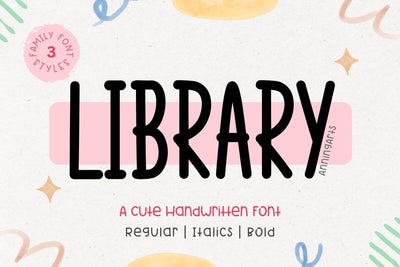
Library - Handwritten Font
'Library Font' – a meticulously crafted handwritten font that brings a touch of neatness and realism to your digital canvas. With its three distinct styles – Regular, Italics, and Bold – 'Library' offers unparalleled versatility for your creative projects. Whether you're organizing your week with planners, jotting down thoughts in Goodnotes, or crafting digital art in note-taking apps, this font is your perfect companion. Elevate your digital journaling and art creations with 'Library,' where elegance meets functionality.